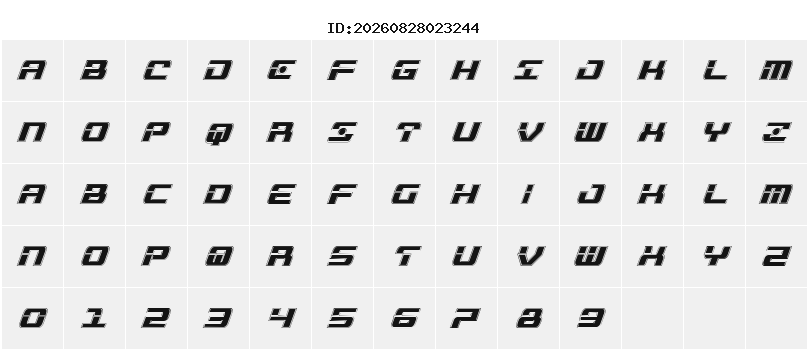
Troopers Academy Condensed Italic Preview
• Font Name: Troopers Academy Condensed Italic
• Font Style: Condensed Italic
• Full Font Name: Troopers Academy Condensed Italic
About Troopers Academy Condensed Italic.ttf
Troopers Academy Condensed Italic.ttf is a modern, elegant sans-serif font designed for ultimate readability and visual harmony. Perfect for branding, headlines, web design, and print materials.